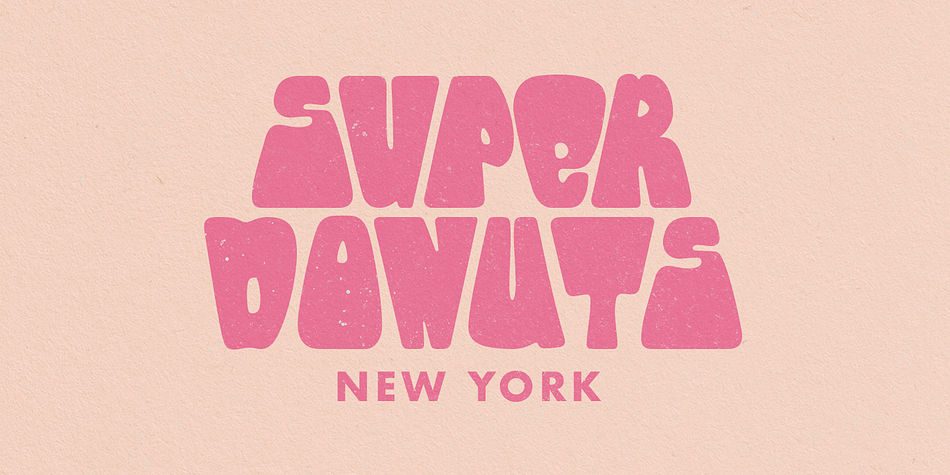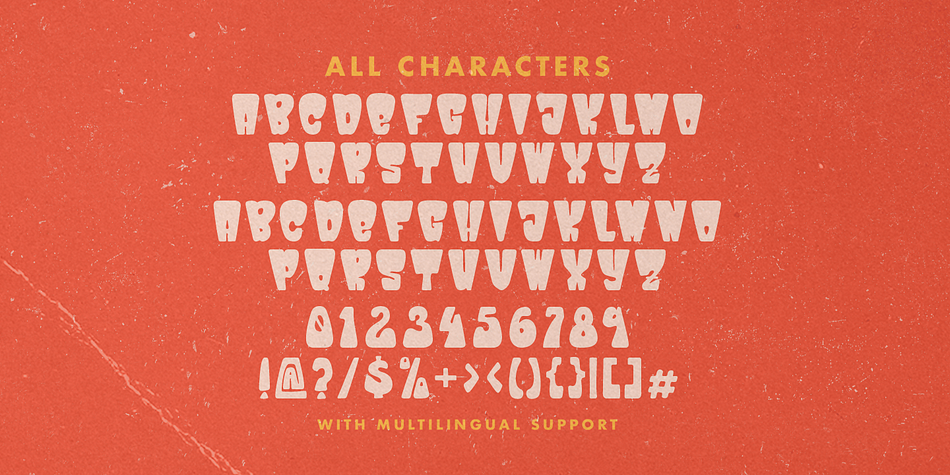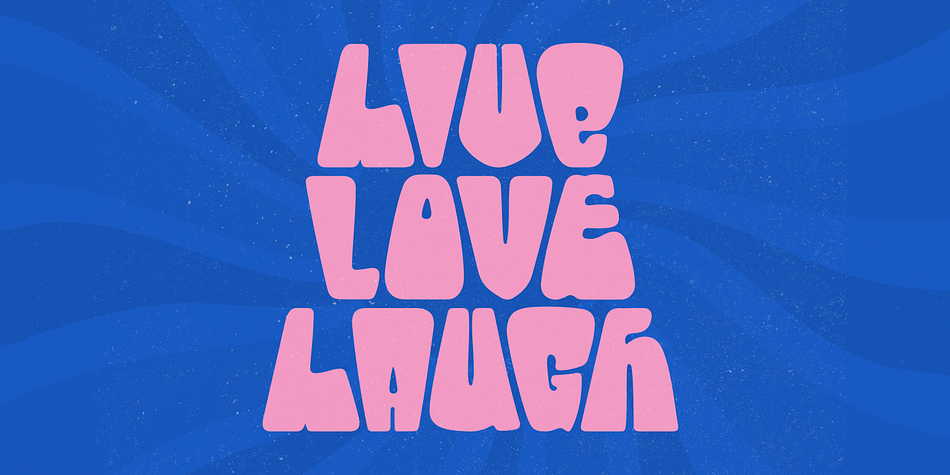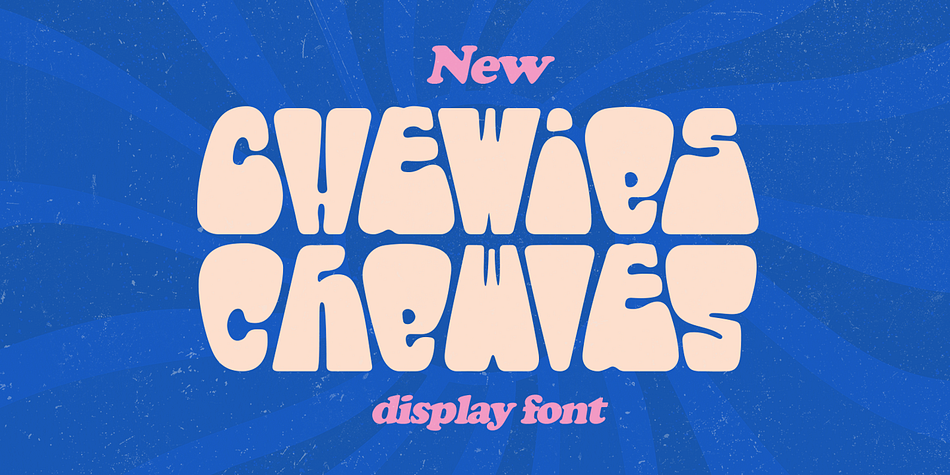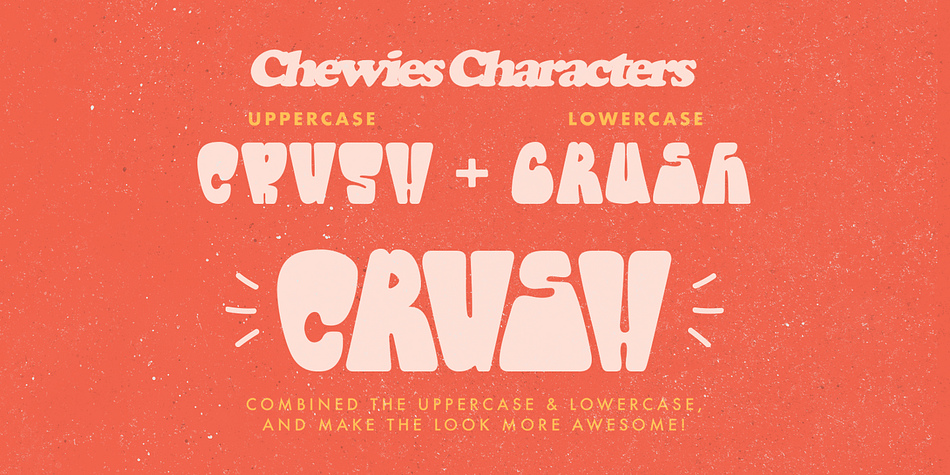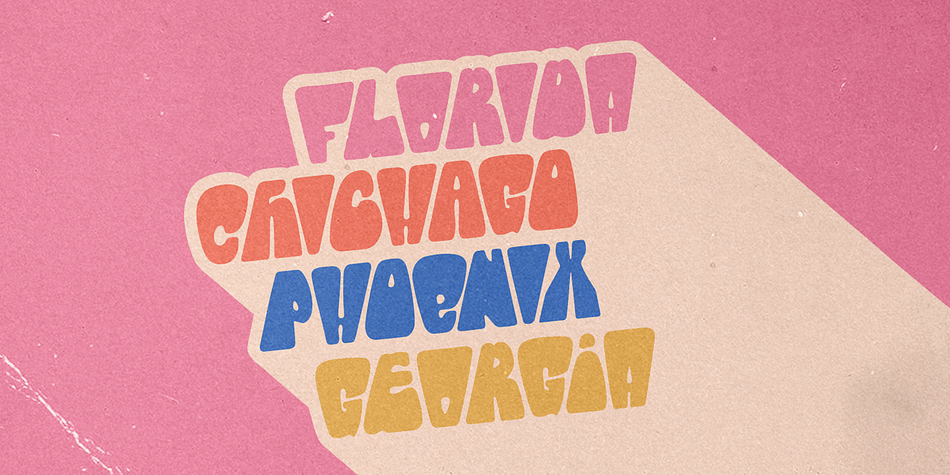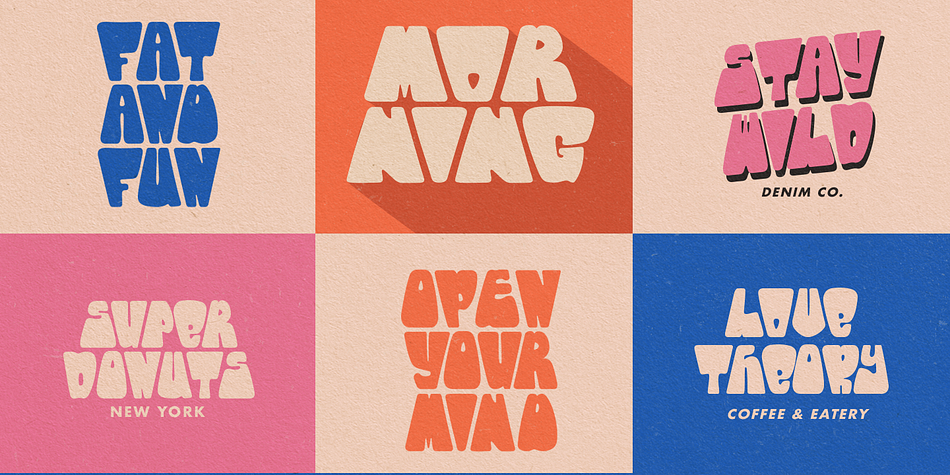
Designed by Hendry Juanda, Chewies is a retro font family published by Letterhend Studio.
Chewies is a quirky bold font with unique letterform. You can playaround to fit the form using uppercase and lowercase mode. This font perfectly made to be applied especially in logo, and the other various formal forms such as invitations, labels, logos, magazines, books, greeting / wedding cards, packaging, fashion, make up, stationery, novels, labels or any type of advertising purpose.